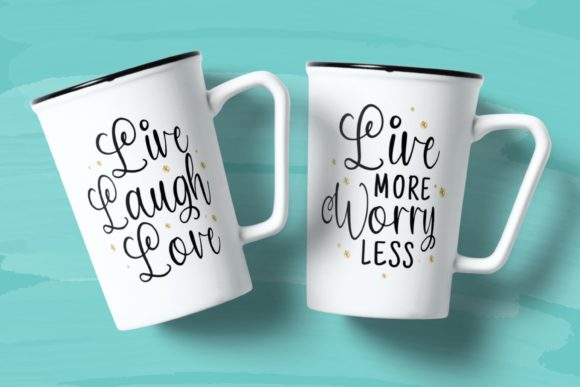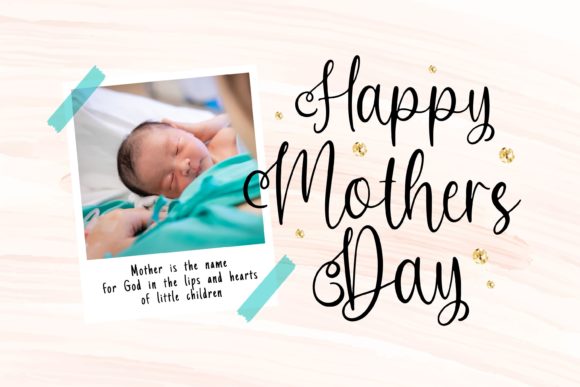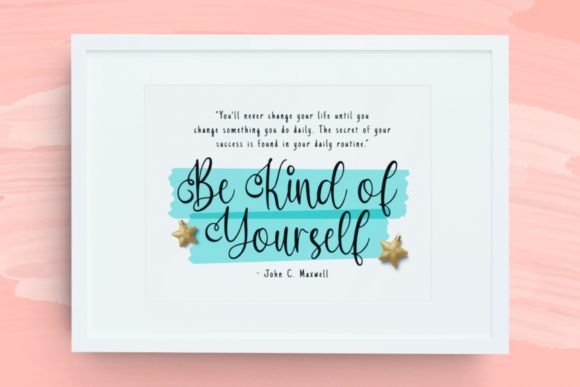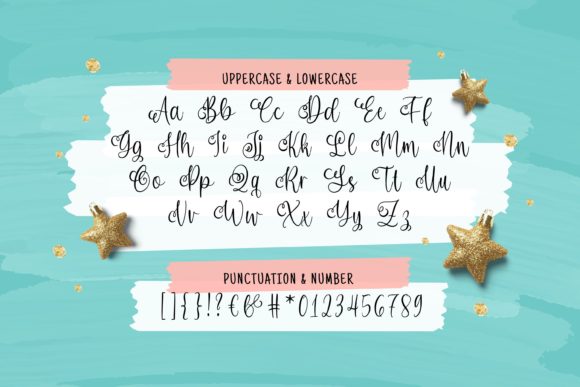
Introduction to Lovelia Stars Font
Lovelia Stars is a flowing handwritten font, described by an elegant touch, perfect for your favorite projects.
Key Features of Lovelia Stars Font
Why Choose Lovelia Stars Font?
Lovelia Stars Font offers exceptional quality and versatility, making it a valuable addition to your design toolkit. Whether you’re creating for personal projects or commercial use, Lovelia Stars Font delivers professional results.